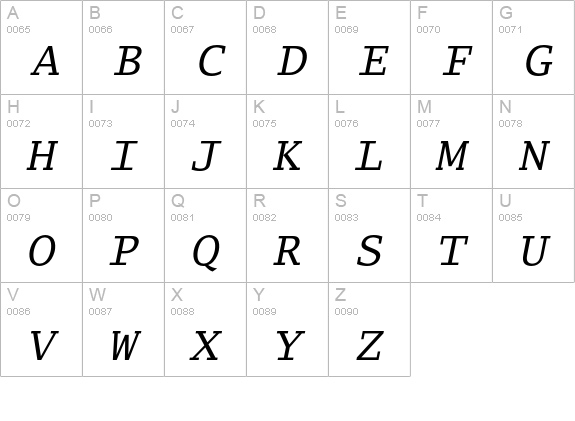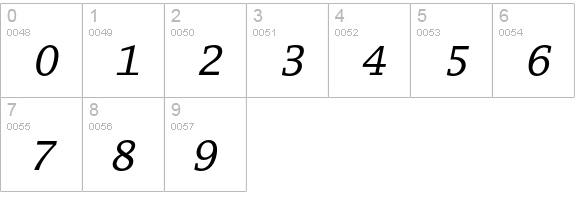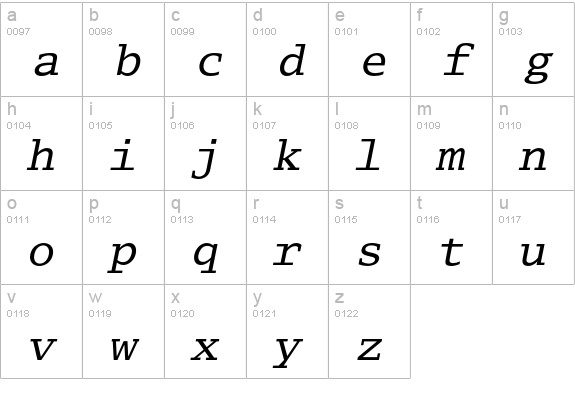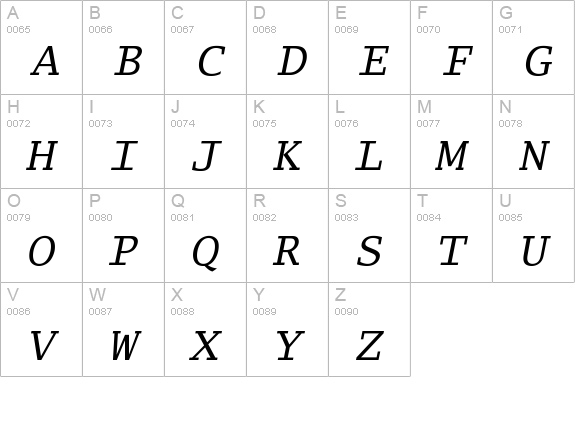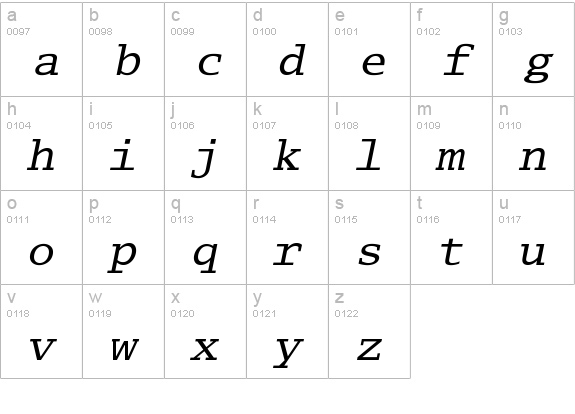
Lucida Typewriter Std Oblique Font Details
Lucida Typewriter Std Oblique is a distinctive, italic variant in the Lucida typeface family \xE2\x80\x94 well suited to design and typography projects.
The Lucida Typewriter Std Oblique font is a classic and versatile typeface that exudes a sense of elegance and sophistication. With its unique slanted design, this font is perfect for adding a touch of style to any project. Whether you're looking to create a vintage-inspired poster or a modern website design, Lucida Typewriter Std Oblique has got you covered. What's even better is that this font is available for free download at FontsMarket.com. So, whether you're a professional graphic designer or simply looking to spruce up your personal projects, you can easily access this font and start using it right away. Don't miss out on the opportunity to enhance your designs with the timeless appeal of Lucida Typewriter Std Oblique. Download it now and let your creativity shine!